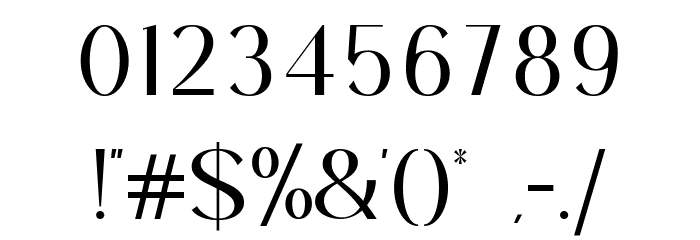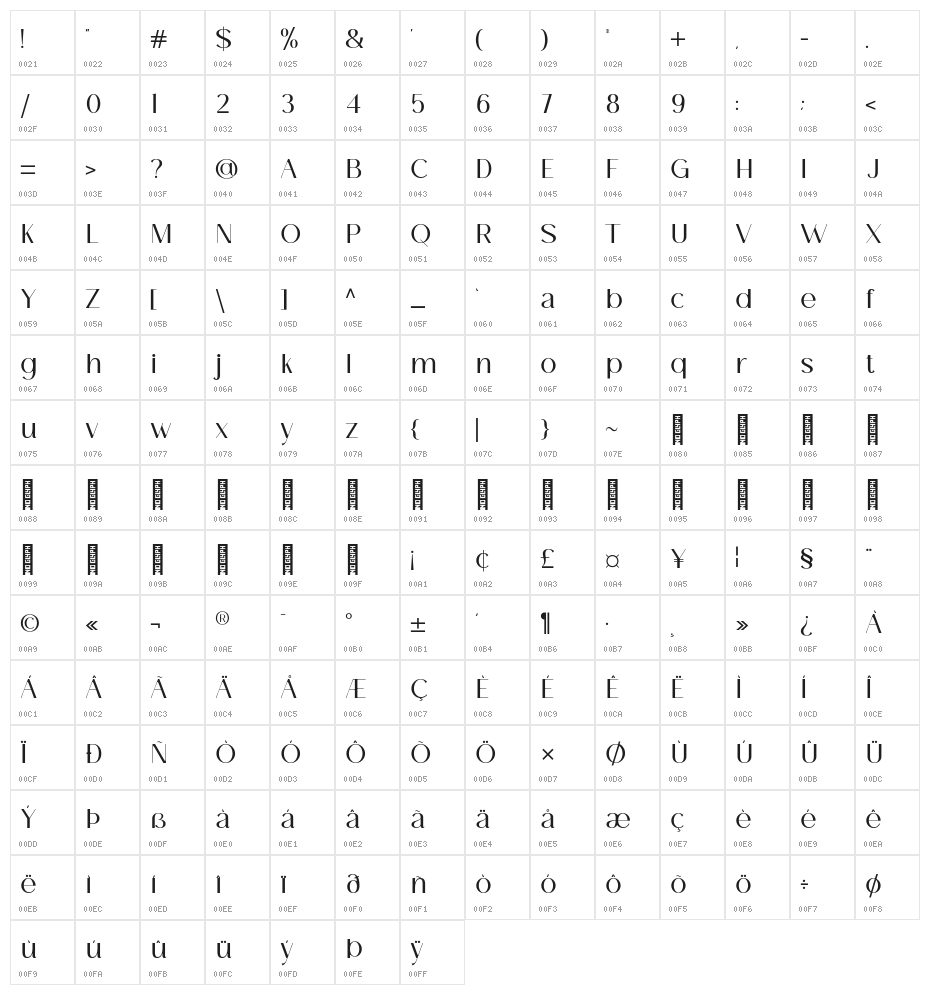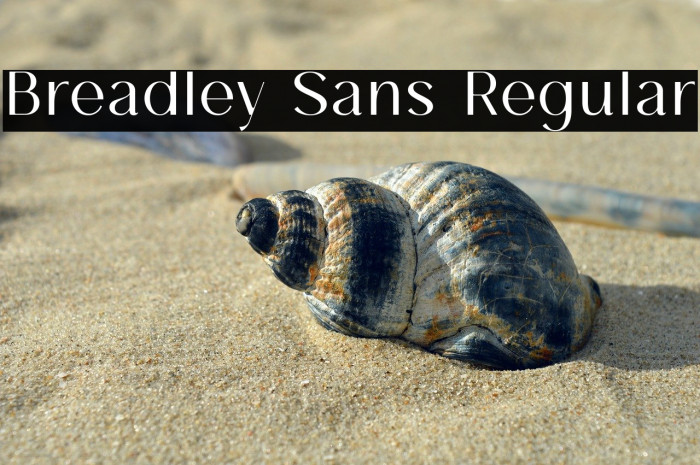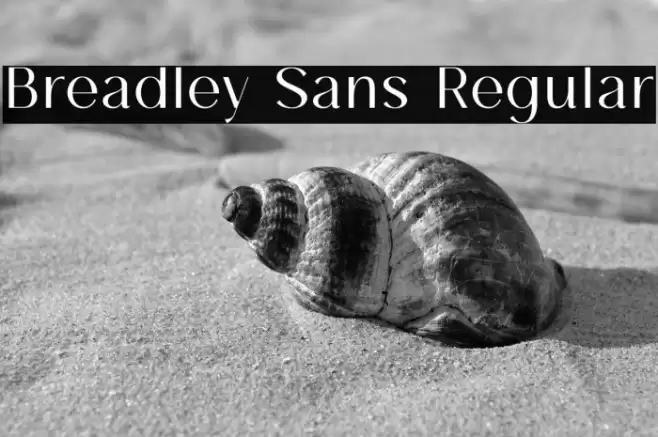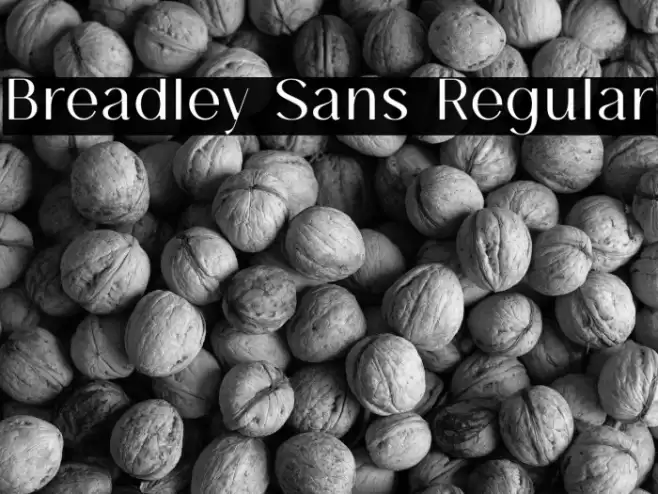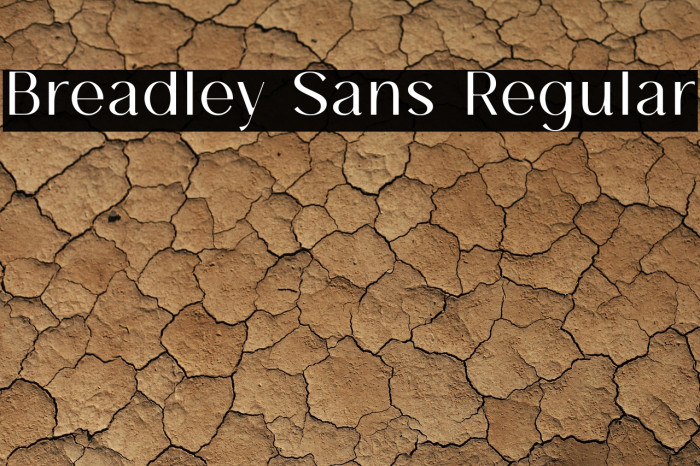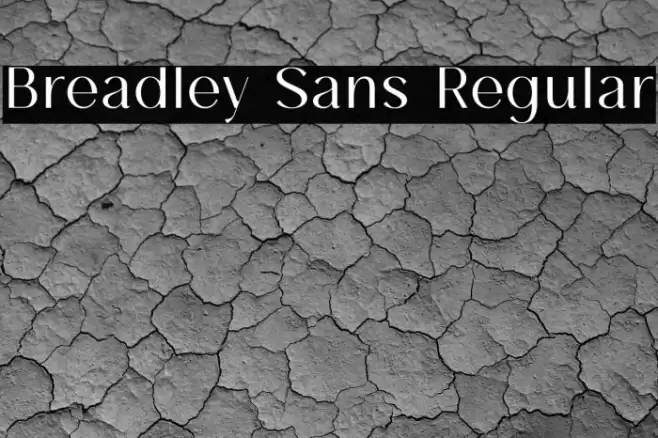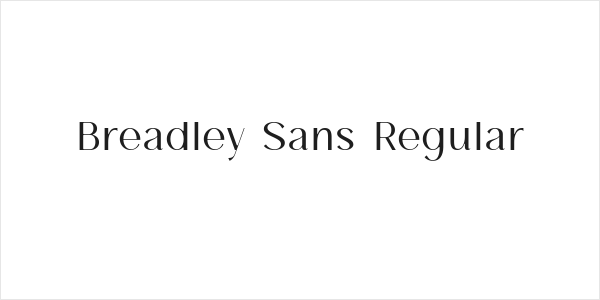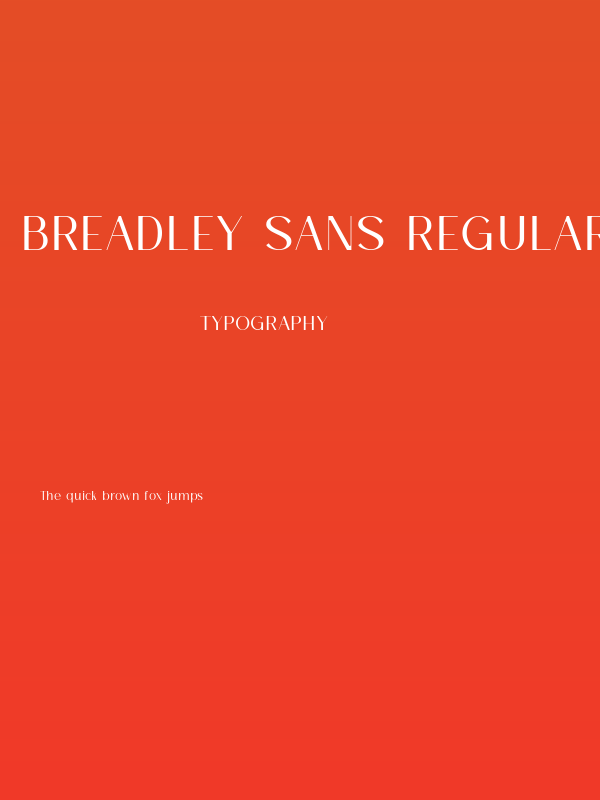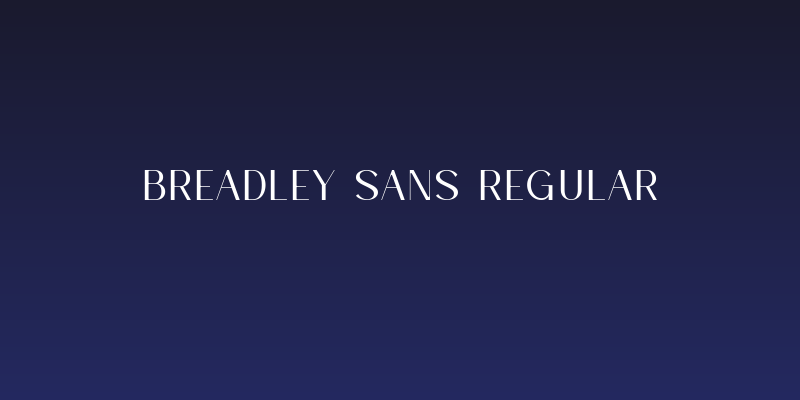
Breadley Sans Regular Font
Breadley Sans Regular Description
This typeface features a clean and modern aesthetic with a sans-serif style. The characters are designed with a high contrast between thick and thin strokes, giving it a sophisticated and elegant appearance. The uppercase letters are tall and slightly condensed, while the lowercase letters maintain a consistent height, providing a harmonious balance. The numerals are clear and legible, making them suitable for various applications. Special characters are included, maintaining the overall sleek design. This font is versatile, suitable for both digital and print media, and can be used in a variety of design projects.
| Proposed Projects | Ideal for branding, editorial design, web design, and advertising. |